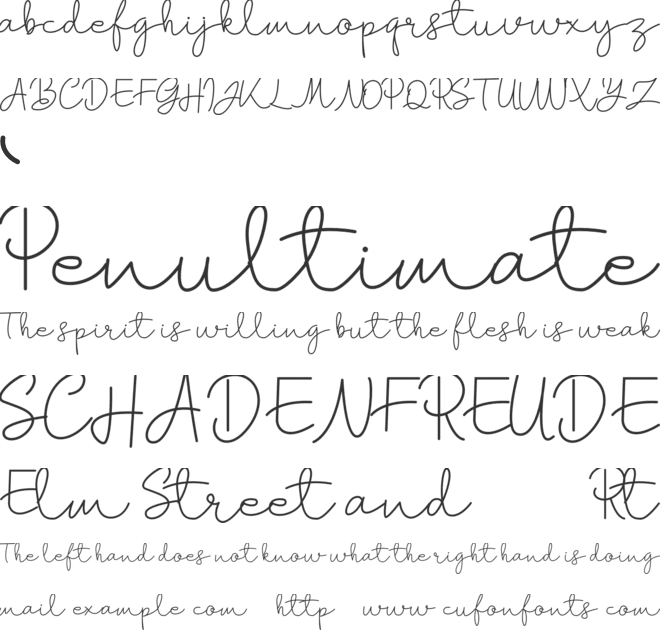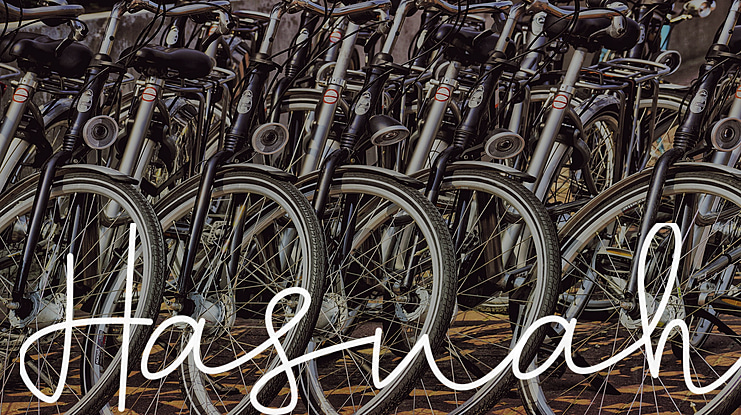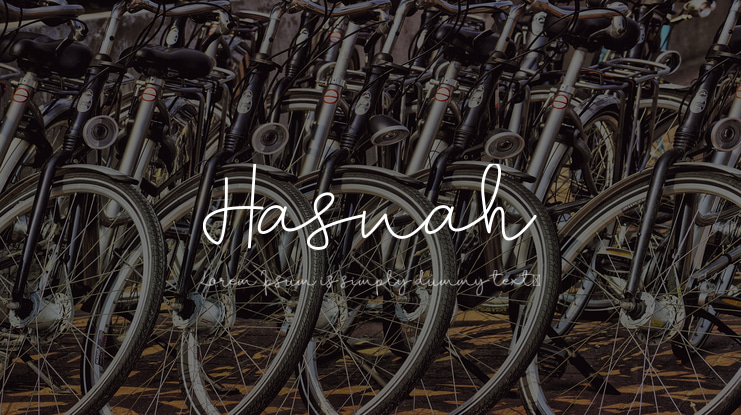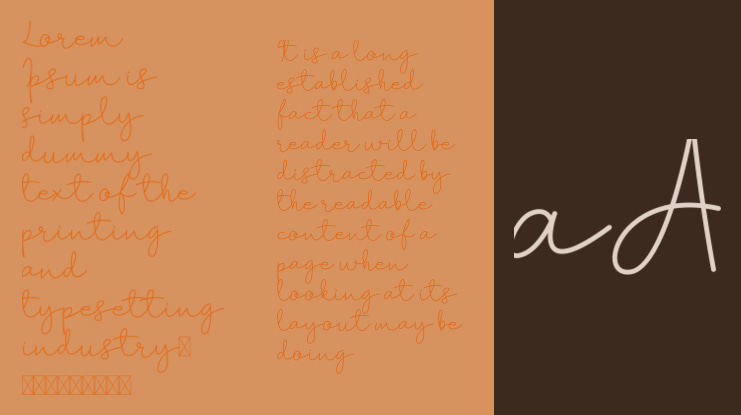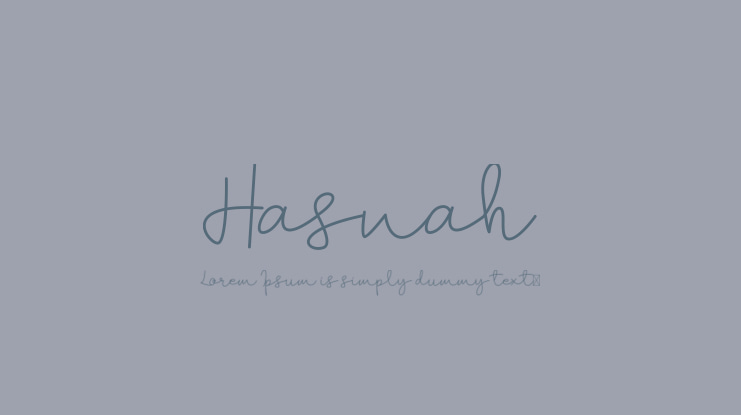
Hasnah Font
Presenting Hasnah Signature - a new modern & fresh script with a stylish handwritten and script style make this font looks natural, classy, natural and perfect for any awesome projects that need handwriting taste.